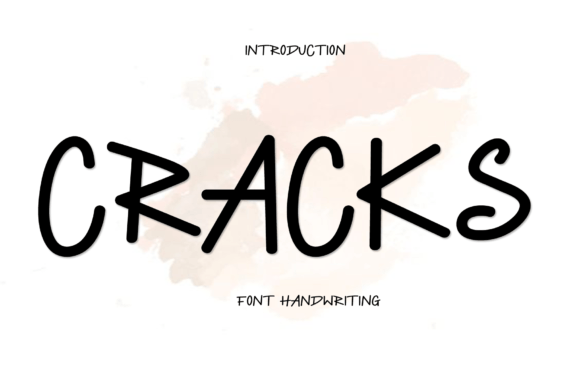
Welcome to the world of Cracks Font! This exquisite and unique handwritten script is a creation of RR Studio, one of the most renowned names in the font industry. Cracks Font is an ideal choice for those who are looking for the best fonts for display boards.
What sets Cracks Font apart from other script fonts is its classic and simple design, which was created in a random and freestyle manner. This makes it perfect for all your creative design projects, whether it's for logotype, headline font, corporate identity, brand identity, apparel industry, poster, music, movie, game, magazine, book, comic, cartoon, YouTube, Instagram, website, or anything in between.
One of the reasons why Cracks Font is so popular is its versatility. It can be used for a wide range of design projects, making it an excellent choice for graphic designers, web developers, or anyone who wants to elevate their design game.
With Cracks Font, you can add a touch of elegance and sophistication to your designs, thanks to its smooth and flowing curves. This font is perfect for creating eye-catching headlines or adding a personal touch to your logo.
In conclusion, Cracks Font is a must-have for anyone looking to create captivating designs that stand out. With its classic and simple design, versatility, and keyword-richness, this font is a valuable addition to your creative toolkit. So what are you waiting for? Download Cracks Font now and take your designs to the next level!